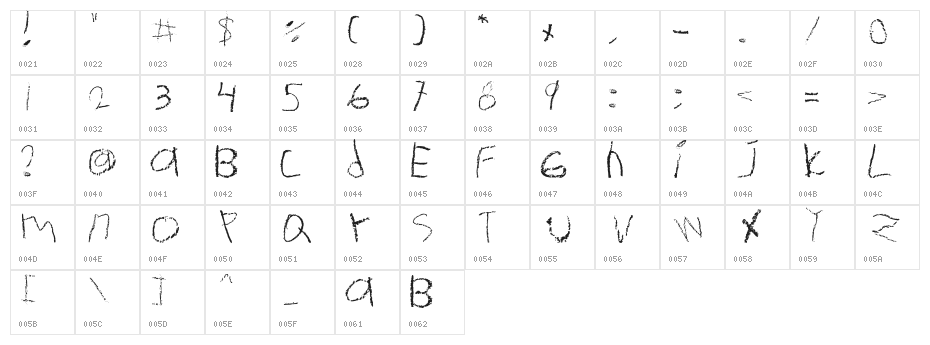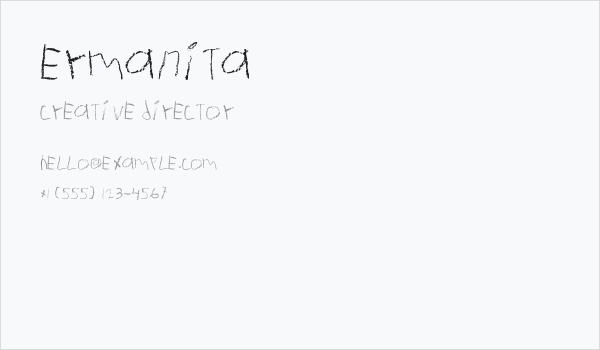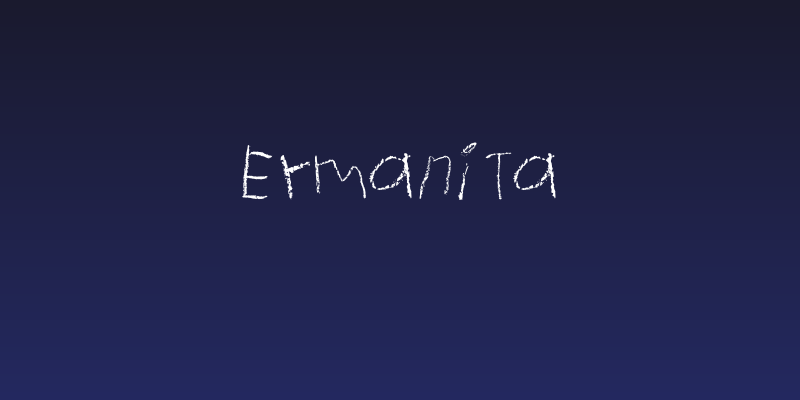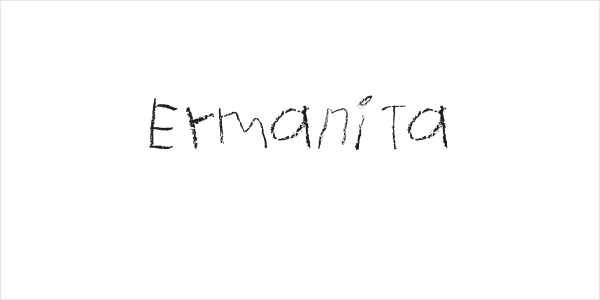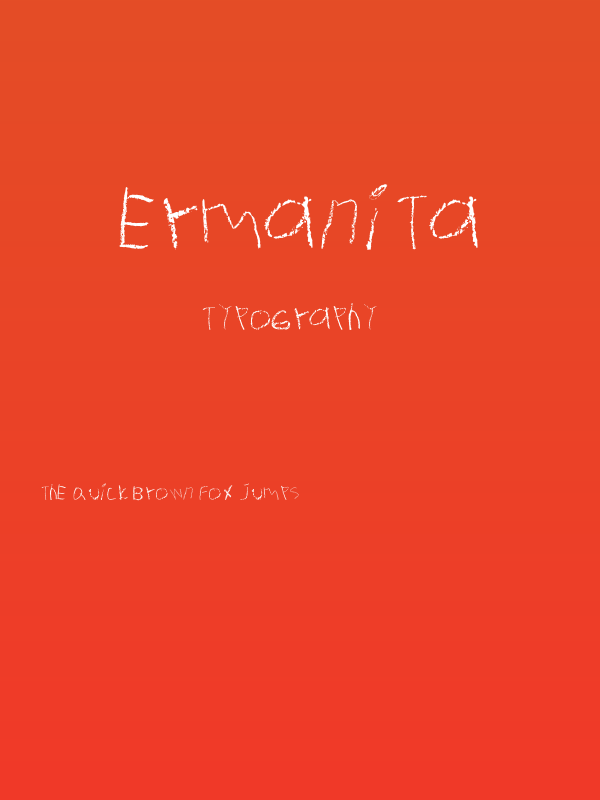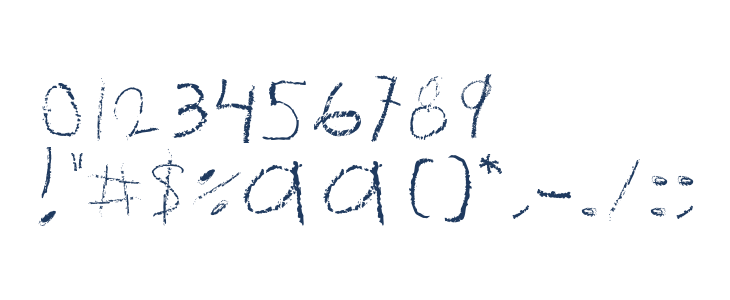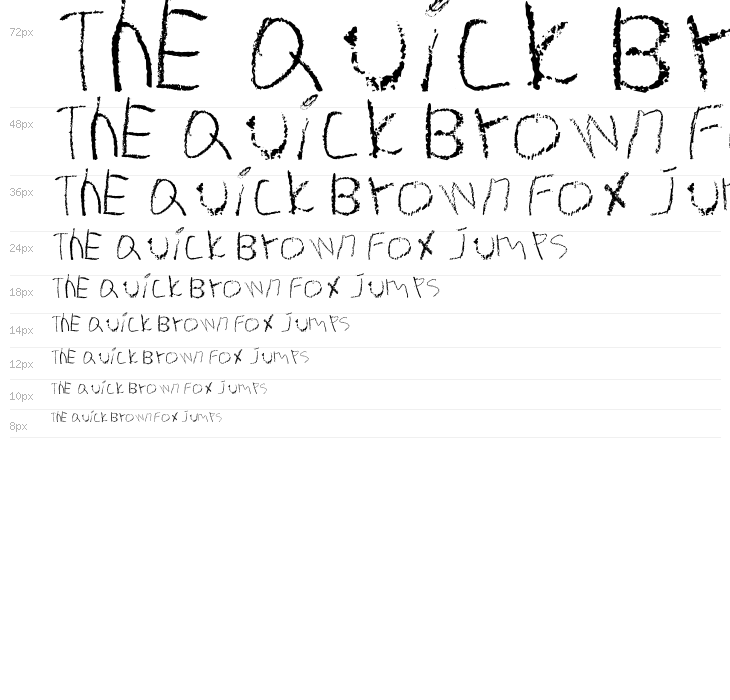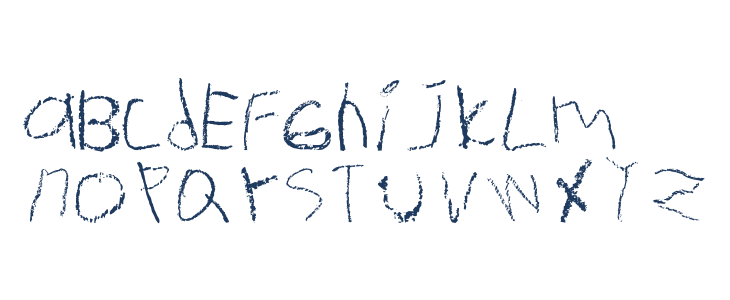
Ermanita Font
Ermanita Description
This font exhibits a unique, hand-drawn style with a rough, textured appearance. The characters are irregular and have a playful, informal look, reminiscent of chalk or crayon sketches. The uppercase and lowercase letters maintain a consistent style, with some letters featuring exaggerated curves and angles. The numbers and special characters follow the same aesthetic, adding to the font's cohesive appearance. This font's distinctive, artistic quality makes it stand out, offering a creative and expressive option for various design projects.
| Use Case | Headlines, Artistic projects, Informal designs |
| Proposed Projects | Ideal for children's book covers, creative posters, artistic branding, and informal invitations. |